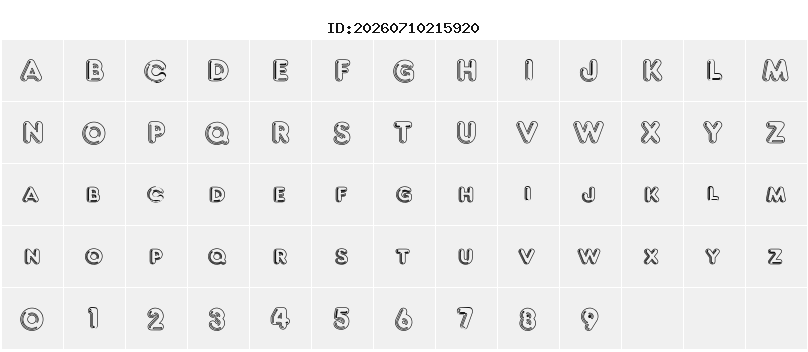
Hang 'Em 2 Preview
• Font Name: Hang 'Em 2
• Font ID: Frankfurt Hollow
• Full Font Name: Hang 'Em 2
• Version: 1.0 Sun Apr 04 15:38:00 1993
• PostScript Name: FrankfurtHollow
• Character Count: 85
About Hang 'Em 2.ttf
Hang 'Em 2.ttf is a modern, elegant sans-serif font designed for ultimate readability and visual harmony. Perfect for branding, headlines, web design, and print materials.